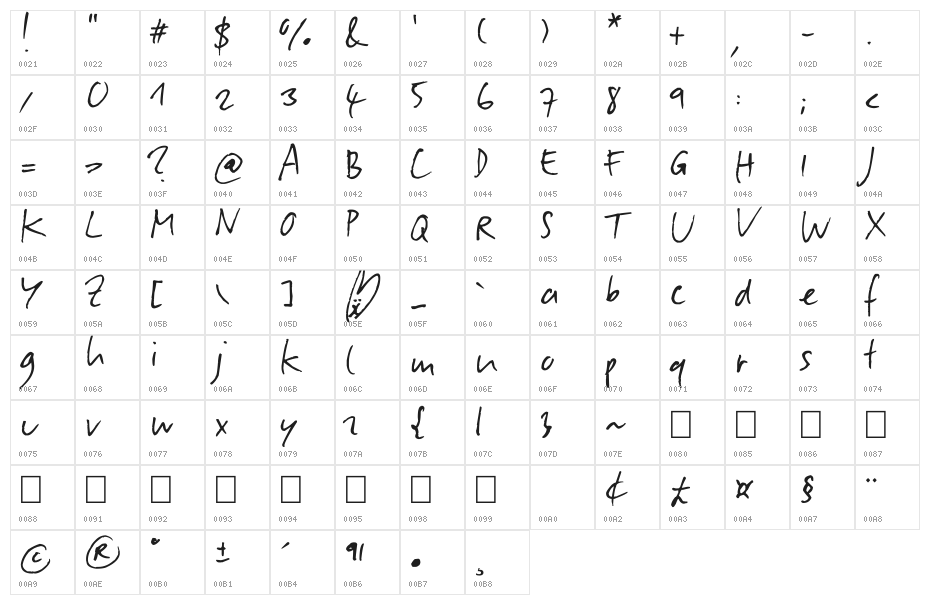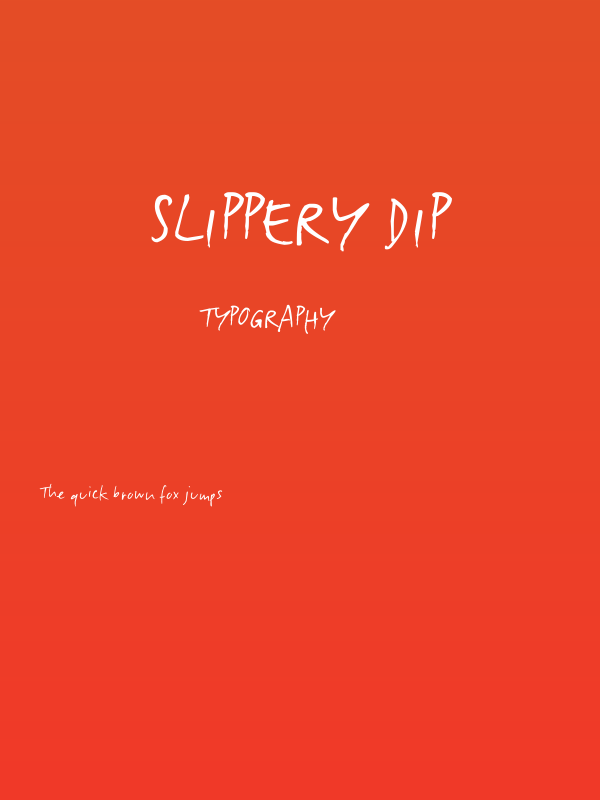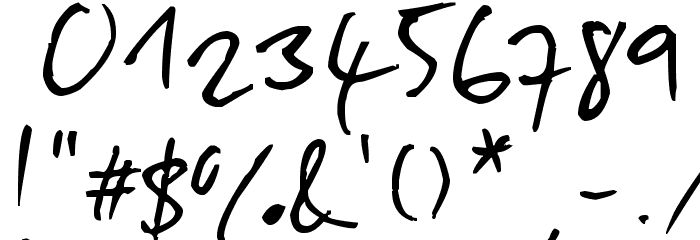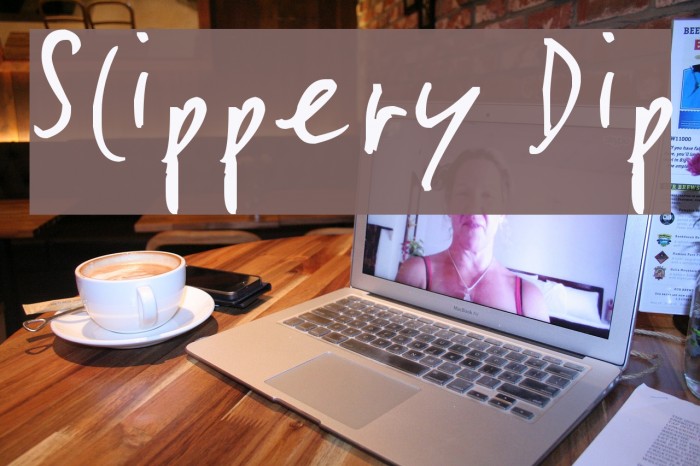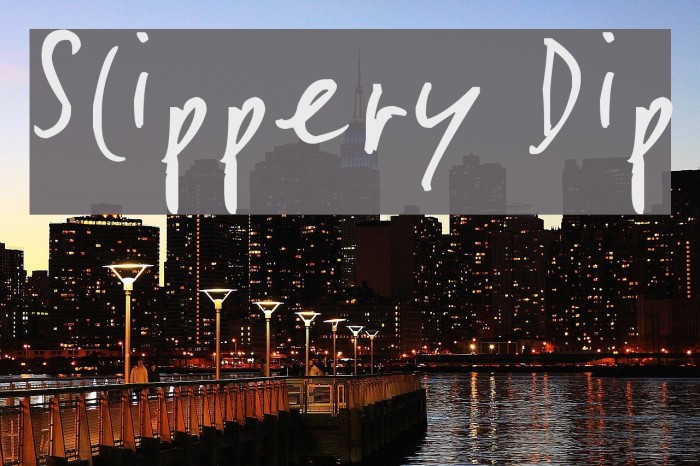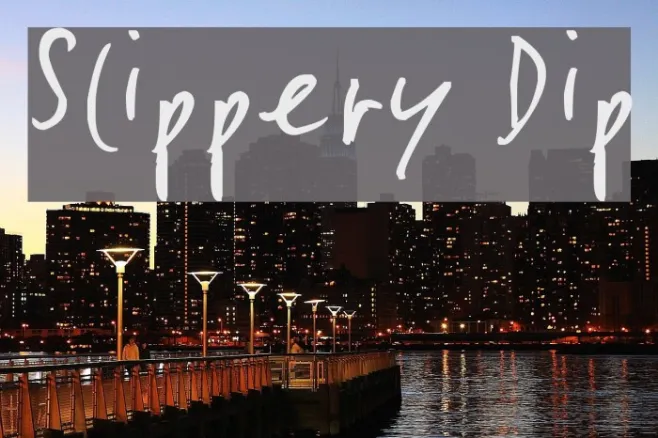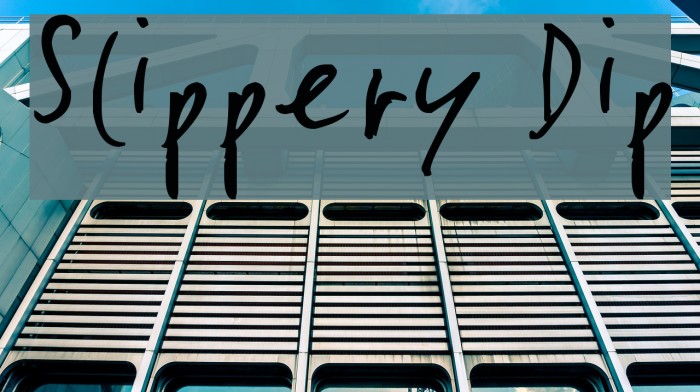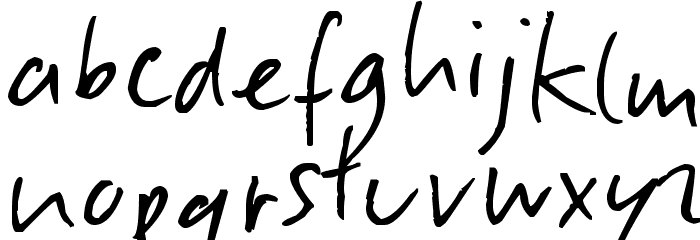
Slippery Dip Font
Slippery Dip Description
This font exhibits a playful and dynamic handwritten style, characterized by its irregular strokes and casual appearance. The letters are slightly slanted, giving a sense of movement and spontaneity. The uppercase and lowercase letters maintain a consistent style, with varying stroke thickness that adds to its informal charm. The numerals and special characters follow the same lively design, making the font versatile for creative projects. Its overall appearance is reminiscent of quick, expressive handwriting, ideal for adding a personal touch to any design.